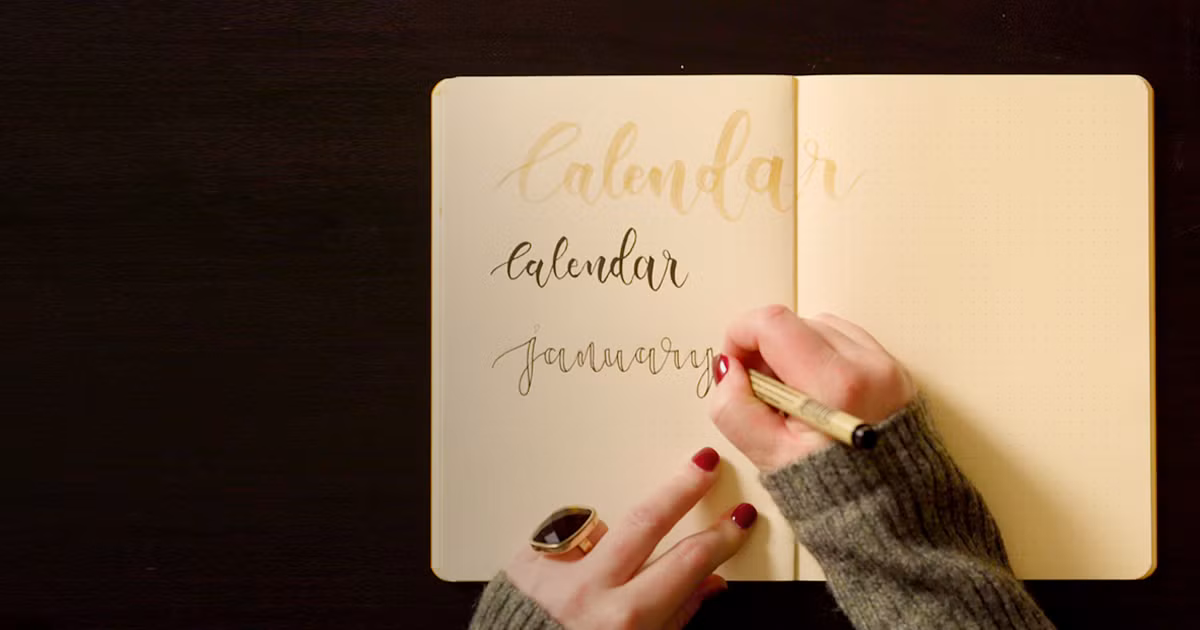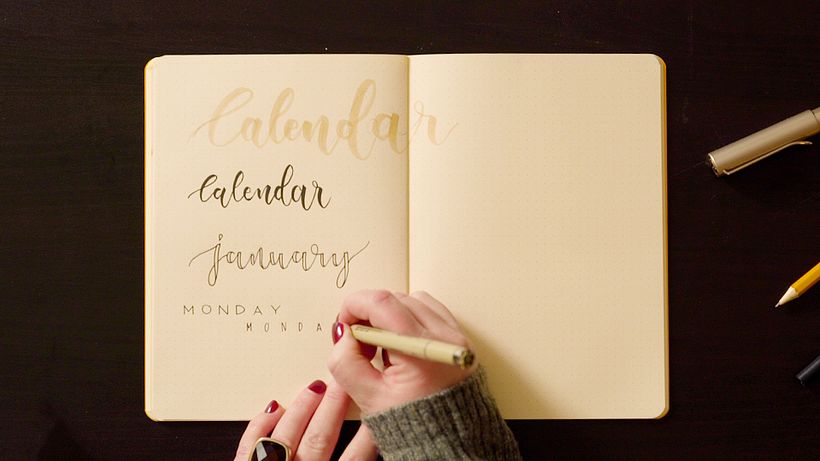
Bullet Journal Tutorial: Ideas To Improve Your Hand-Lettered Fonts
Improve your hand-lettered fonts, with bullet journal expert Annie Weir AKA A Journal by Annie
A bullet journal offers a way of documenting our lives with craft, care, and calligraphy. They require us to take pride over not only what we write but how we write it.
Annie Weir (@a_journal_by_annie), the bullet journalist behind the page A Journal By Annie, is an artist who uses her bullet journals to practice mindfulness every day. In this tutorial, she shares a few basic tips on how to improve your hand-lettered fonts.
1. Brush lettering
Sketch out any new words or styles out in pencil first. You may choose to skip this step if you are more experienced but using pencil allows you to make any adjustments before putting your brush pen to paper.
Once you have your plan, you can go over the lines with your brush pen. If you don’t like your initial sketch, you can choose to ignore it as you go or erase it and start again.
2. Fine brush lettering
Adjust the width of your tips and nibs according to the size of your page and the amount of text you want on it. A smaller nib is likely to give you more control but can also be more complicated to manage.
If you notice any imperfections in your lettering, don’t be afraid to go back and fill in any spaces to fix them.
3. Faux lettering
Faux lettering uses a more conventional pen which doesn’t create the brush effect naturally. This gives you greater control over placement and dimensions. You can fill in your letters if you choose but leaving them empty also gives a nice effect.